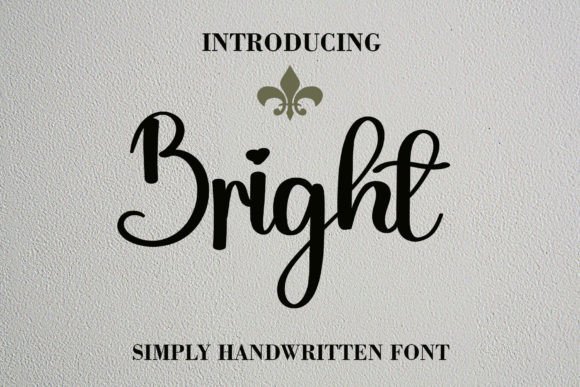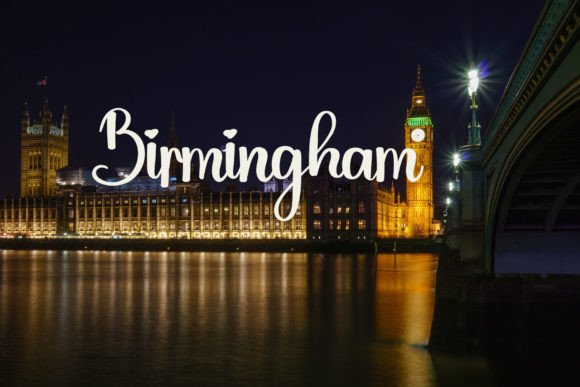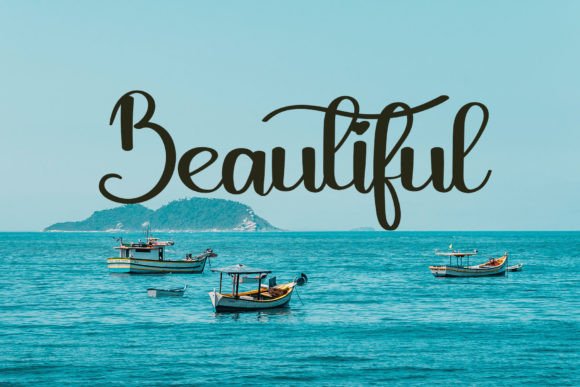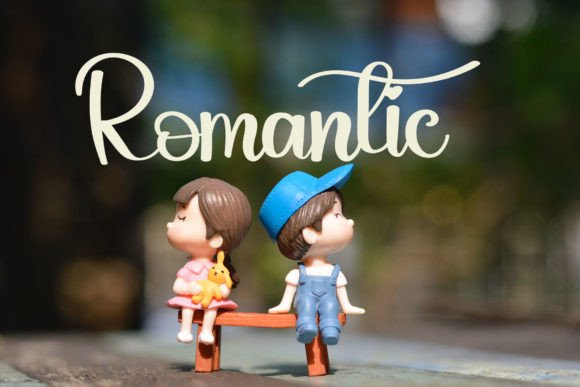
About Bright Font
Bright is a trendy handwritten font with a contemporary atmosphere and impeccable form, inspired by timeless classic calligraphy. It will add elegance and class to any of your design projects.